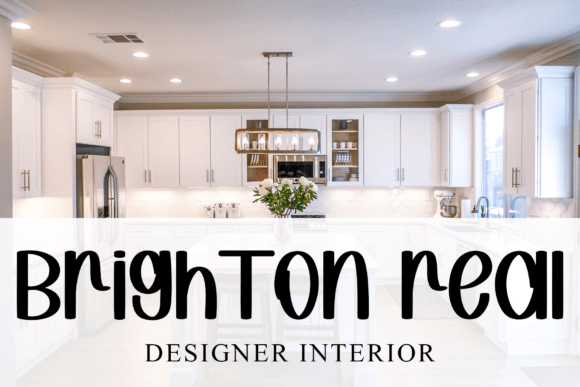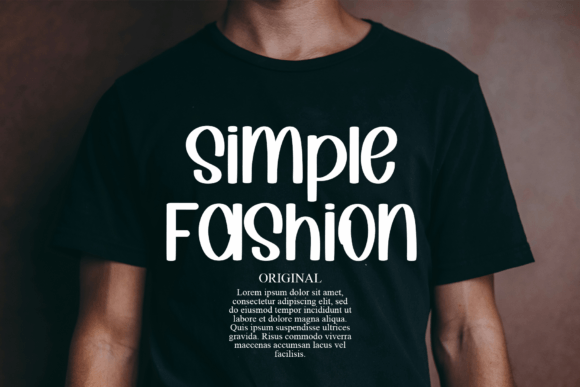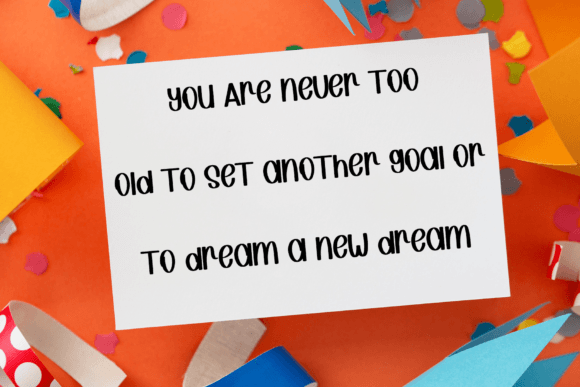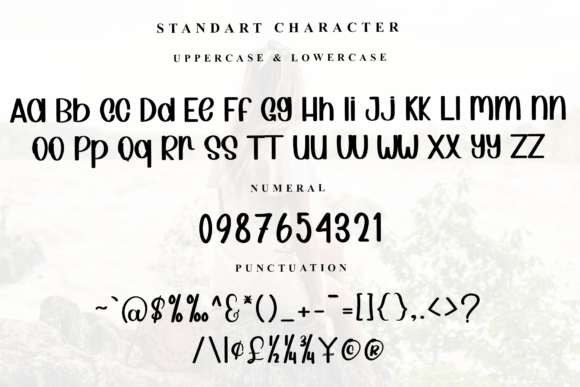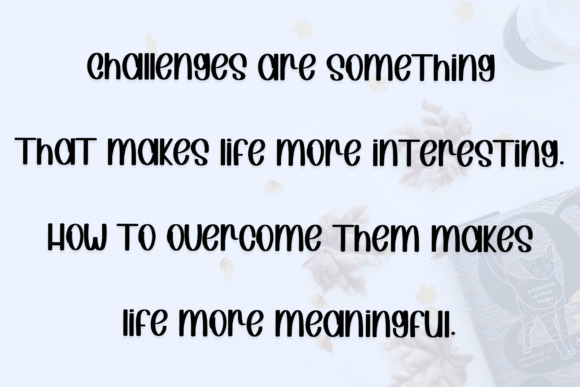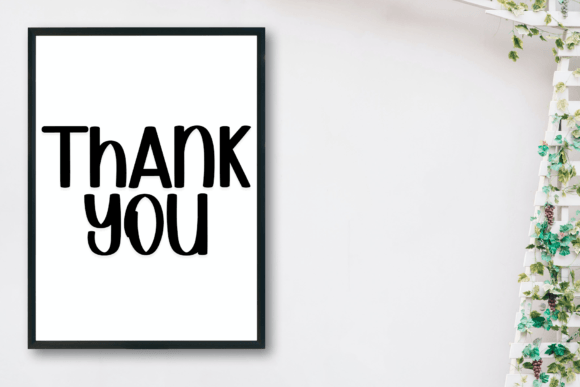
Get Ready to Deck the Halls with Brother Font
There’s something magical about the holiday season. The twinkling lights, the cozy atmosphere, and the joyous spirit that fills the air. For designers, this time of year is a chance to get creative and bring a little extra cheer to their projects. Whether you’re working on a festive greeting card, a gift label, or a holiday-themed campaign, the right font can make all the difference.
Enter Brother Font, a delightful and festive typeface that captures the essence of the holiday season. With its decorative elements and unique flair, this font adds a touch of charm to any design. Perfect for designers looking to bring a cheerful and nostalgic atmosphere to their words, Brother Font is a valuable addition to any creative toolbox.
Key Features of Brother Font
- Unique Characteristics: Brother Font features a distinctive, yet elegant design that is both readable and visually appealing, making it suitable for a wide range of applications, including body text, headings, and titles.
Brother Font Review
As a designer, I’ve had the chance to work with various fonts, and Brother Font is one of the latest additions to my collection. Here’s my honest review.
- Unique blend of modern and classic elements: Brother Font has a distinctive feel that’s both fresh and timeless.
- Excellent legibility: The font is easy to read, even at small sizes, making it perfect for body text and long-form content.
- Highly versatile: Whether you’re designing a logo, business card, or website, Brother Font adapts well to different use cases.
- Some characters feel inconsistent: A few glyphs, such as the ampersand and the hyphen, don’t quite match the rest of the font’s tone.
- Lack of OpenType features: While the font is well-designed, it doesn’t support some of the more advanced features like ligatures and contextual alternates.
Brother Font is a solid addition to any designer’s library, but it’s not without its limitations. While it excels in legibility and versatility, some character inconsistencies and lack of OpenType features hold it back from being a truly top-tier font. That being said, it’s still a great choice for many projects, and I’d definitely recommend it to designers looking for a unique, modern feel.
Tips for Getting the Most Out of Brother Font
Here are a few tips to help you get the most out of Brother Font:
- Use Brother Font for headings and titles to create a bold and eye-catching effect.
- Pair Brother Font with other fonts to create a unique and visually appealing design.
- Experiment with different font sizes and colors to create contrast and emphasis.
Brother Font is commonly used for:
- Headings and titles in posters and flyers.
- Business cards and logos.
- Book covers and magazine titles.